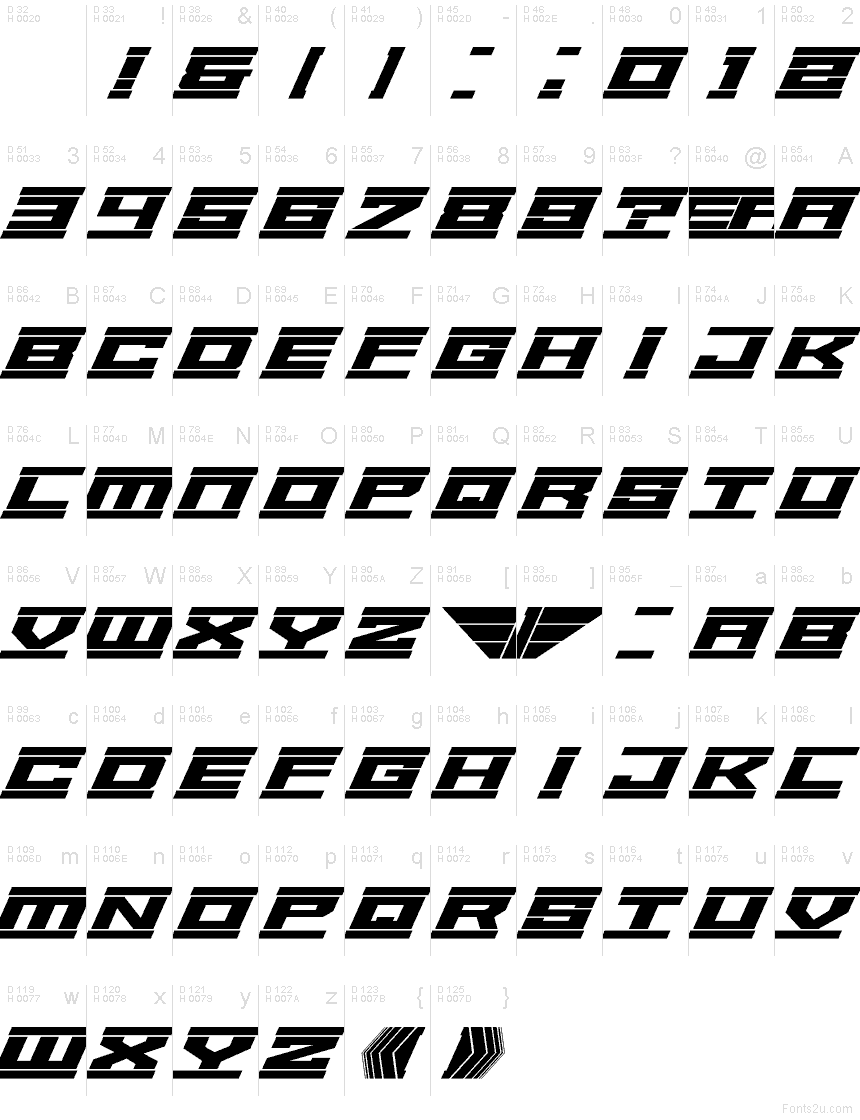
Gear-Frame
Gear6 Frame font by Youssef Habchi is a free techno racing display font built for speed—every letter leans hard forward, boxed in a crisp “frame” that reads like a motion streak. The high-contrast cuts and angular shears create an instant grid of momentum, so headlines snap into place with that trackside urgency. Part of the Gear6 family, it delivers aggressive texture without sacrificing legibility at distance.
Using Gear6 Frame, you can rocket-charge motorsport branding, event posters, esports team logos, automotive decals, tech product launches, streaming overlays, and bold YouTube thumbnails. Its compressed rhythm maximizes impact in tight spaces and scales cleanly on banners and liveries. Pair this free font with a plain, sturdy grotesk for body copy, and give it generous tracking at large sizes to let the frames breathe.